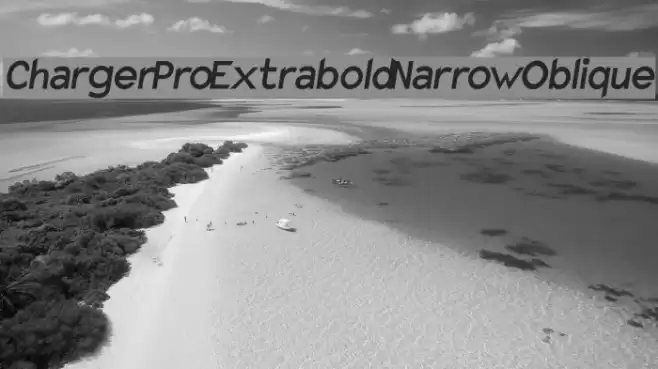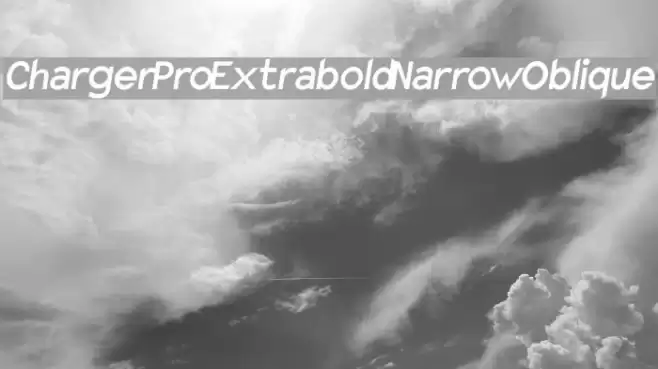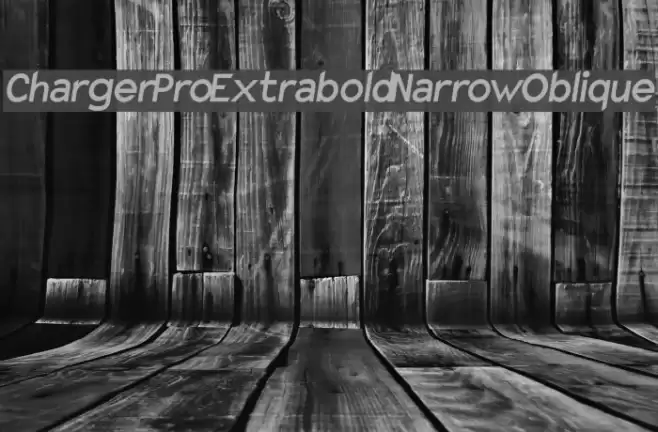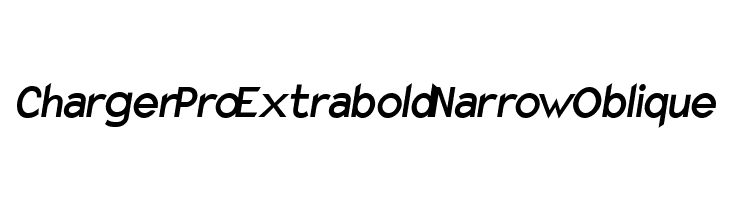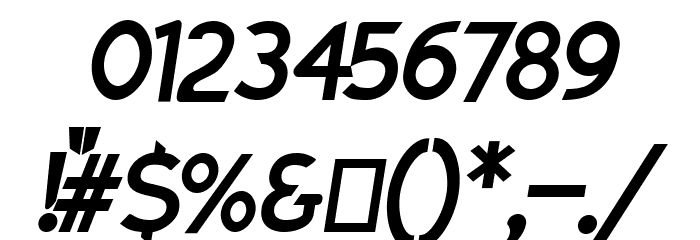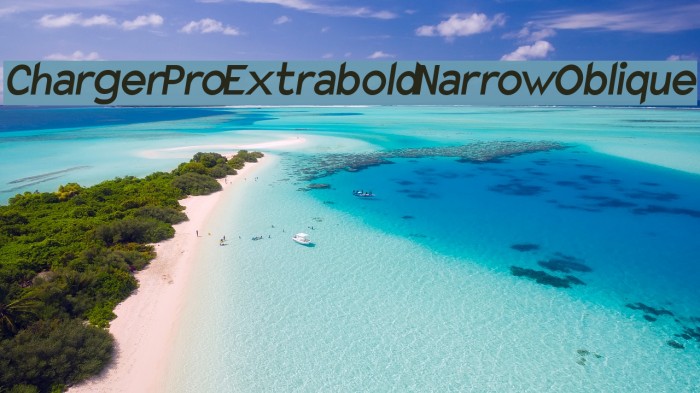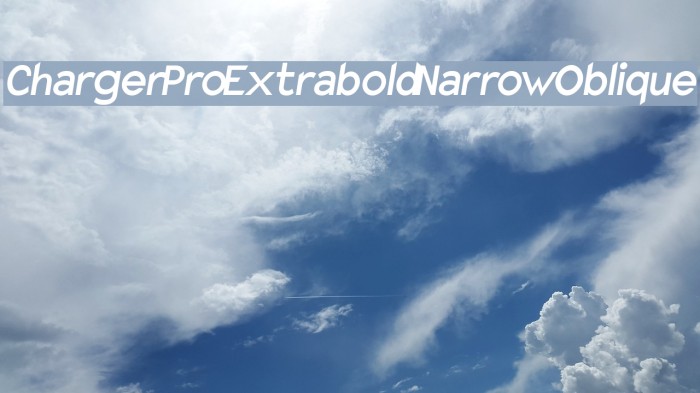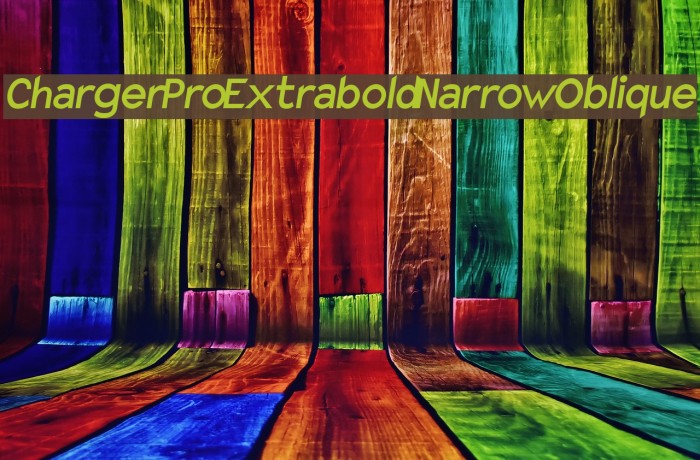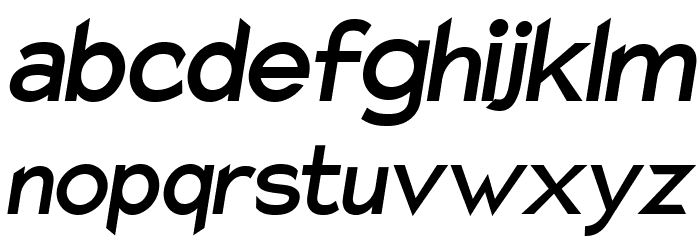
Charger Pro Extrabold Narrow Oblique Font
Charger Pro Extrabold Narrow Oblique Description
This font features a bold and narrow design with an oblique slant, giving it a dynamic and modern appearance. The characters are tightly spaced, enhancing its compact look. The uppercase letters are tall and commanding, while the lowercase letters maintain a consistent style that complements the overall aesthetic. The numerals are clear and distinct, ensuring readability. Special characters are designed with the same boldness, making them stand out effectively. This font's strong and sleek design makes it suitable for impactful visual communication.
A bold, narrow, and oblique font with a modern and dynamic style from Uncategorized fonts.
- Proposed Projects: Ideal for branding, advertising, headlines, and any project requiring a strong visual impact.
- Character Spacing: Tight